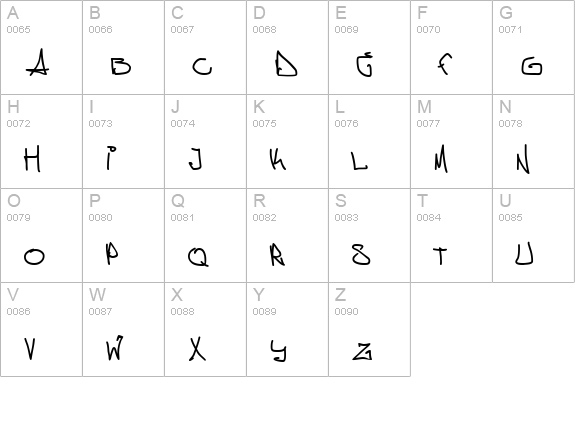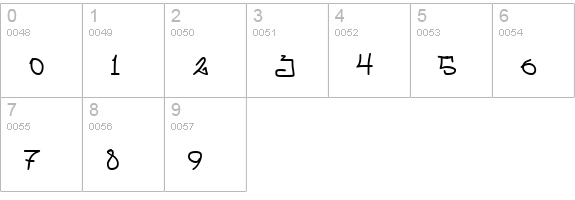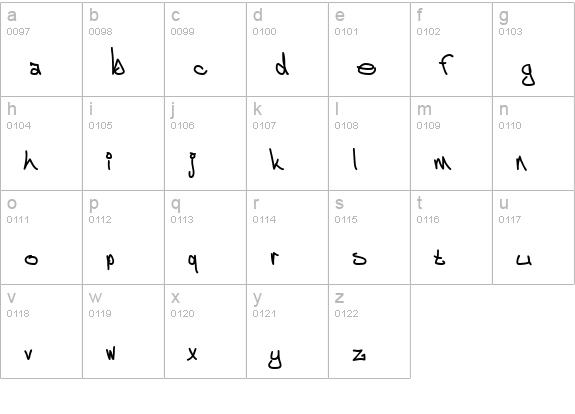
�ggstock Font Details
The �ggstock font is a modern and stylish typeface that is perfect for adding a touch of sophistication to your designs. With its sleek lines and elegant curves, this font is sure to make a statement. Best of all, it is completely free to download at FontsMarket.com. Whether you are working on a project for work or just want to add some flair to your personal creations, the �ggstock font is a versatile choice that is sure to impress. Download it today and elevate your design game with this stunning font!